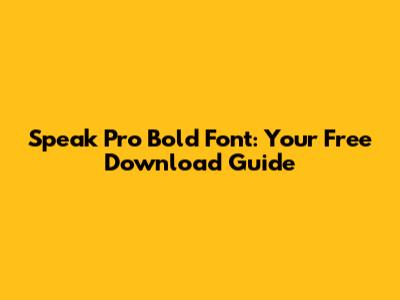
Speak Pro Bold Font: Your Free Download Guide
What Makes Speak Pro Bold Font So Special?
Alright, let's get down to brass tacks: What's the big deal about Speak Pro Bold? Well, first off, it's bold! That means it's designed to make a statement. In a world saturated with information, you need a font that can cut through the noise, and this font does exactly that. Think about it: when you want to emphasize something, you might use bold text, right? Well, Speak Pro Bold is bold, all the time. It's like having a built-in highlighter for your words.
Secondly, it's incredibly versatile. Whether you're working on a poster, a website, a presentation, or even a personal project, Speak Pro Bold fits the bill. It has a clean, modern aesthetic that works well in both digital and print media. This adaptability makes it a top choice for designers, marketers, and anyone who wants their words to pop. And the best part? It's free to download for many uses, making it accessible to everyone, from seasoned professionals to enthusiastic beginners. We'll get to the specifics of the download shortly, so keep reading!
Finally, the font's readability is something to appreciate. Even though it's bold, it's not overly stylized or difficult to read. This is crucial because, at the end of the day, a font's primary job is to communicate. Speak Pro Bold ensures your message gets across clearly and effectively. This font strikes a perfect balance between impact and clarity, making it a winner in many different applications. The design is sleek, and the character shapes are well-defined, making it easy on the eyes. So, you can use it for extended text blocks and still maintain a high degree of legibility. It's a font that doesn't sacrifice substance for style, and that's something really valuable.
Speak Pro Bold Font: Uses and Applications
1. Branding and Logos: Speak Pro Bold is a fantastic choice for creating memorable branding elements. Its boldness and clean lines make it stand out in logos, headers, and other brand assets. It communicates strength, confidence, and modernity – all essential qualities for effective branding. A well-designed logo with this font can leave a lasting impression on your audience.
2. Website Design: In website design, Speak Pro Bold works wonders for headings, subheadings, and calls to action. It grabs attention and directs the viewer's eye where you want it to go. Its readability also allows it to be used for short snippets of text to provide an extra visual pop. Whether you're designing a blog, an e-commerce site, or a portfolio, Speak Pro Bold can significantly improve the user experience.
3. Social Media Graphics: Social media is all about visual content. Speak Pro Bold is perfect for creating eye-catching graphics for platforms like Instagram, Facebook, and Twitter. Use it in quotes, announcements, and promotional materials to ensure your message gets noticed. Its boldness ensures your content will pop out on the crowded news feeds.
4. Print Materials: Don't forget the power of print! Speak Pro Bold is also great for posters, flyers, brochures, and other printed materials. Because of its clarity and strong presence, it is very effective in print applications. You can rest assured that your message will be clear and easy to read. This is a must-have for advertising, event promotions, and informational materials.
5. Presentations: Want to make your presentations more engaging? Use Speak Pro Bold for your slides. It makes your text easier to read from a distance and adds a touch of professionalism to your design. Its bold style and readability will help your audience focus on the core message.
6. Personal Projects: Let's not forget personal projects! Whether you're designing invitations, creating art, or just adding a unique touch to your documents, Speak Pro Bold is an excellent choice. It gives a modern and stylish feel to any personal creation, allowing you to showcase your creativity.
Tips for Using Speak Pro Bold Font Effectively
Okay, you've got the font, you know the uses, but how do you make the most of it? Here are some pro tips to help you use Speak Pro Bold like a pro:
1. Pair It Wisely: Don't use Speak Pro Bold for everything. Pair it with a complementary font for body text. A sans-serif font like Open Sans or Roboto works great for body text because it provides a good contrast and makes your text easier to read.
2. Consider the Context: Think about where and how you'll use the font. Is it for a website, print materials, or social media? Tailor your design to the platform. A bold font might work great for a headline but be overwhelming for paragraphs of text.
3. Pay Attention to Spacing: Kerning and leading (the space between letters and lines) are essential. Make sure the spacing is balanced to enhance readability. Avoid cramped text, as it can detract from the font's impact. Adequate spacing is crucial for presenting a clean and polished design.
4. Use Color Strategically: Experiment with color. Speak Pro Bold looks great in various colors. Consider the color psychology of your project and choose colors that complement the font. Contrast is your friend; ensure there is a good contrast between text and the background for improved readability.
5. Test and Refine: Always preview your design. Test how the font looks in different contexts and refine your design based on the results. Get feedback from others. Ask your friends or colleagues for their opinions to make sure your design is appealing and easy to understand.
Speak Pro Bold Font Alternatives
While Speak Pro Bold is a fantastic choice, it's always good to have alternatives in mind. Here are a few fonts that share some similarities and can be used as alternatives:
• Impact: Impact is another bold sans-serif font that is well-known for its strong presence. It is similar to Speak Pro Bold and is suitable for headlines. It's a classic choice.
• Arial Black: Arial Black is another option with bold weights, but it has a slightly different feel. It is versatile, and many consider it a safe choice for various applications.
• Roboto Black: Roboto Black is a modern sans-serif font known for its clean lines and readability. It offers a solid, bold alternative for many uses.
• Oswald: Oswald is a sans-serif designed for digital screens. It is a bold, condensed font and a great choice for headings and titles.
Exploring different font options gives you more flexibility in your designs. These alternatives can give a similar impact or can be used as a contrasting font.
Conclusion: Why Speak Pro Bold Font is a Winner
So, there you have it, guys! Speak Pro Bold is a remarkable font that combines style, readability, and versatility. With its free download availability and wide range of applications, it's a must-have for designers, marketers, and anyone who loves great typography. Remember to always download fonts from trusted sources, and check the license to ensure compliance with your intended use. So go ahead, give Speak Pro Bold a try. I'm sure you will agree with me: It will elevate your designs and make your words shine!